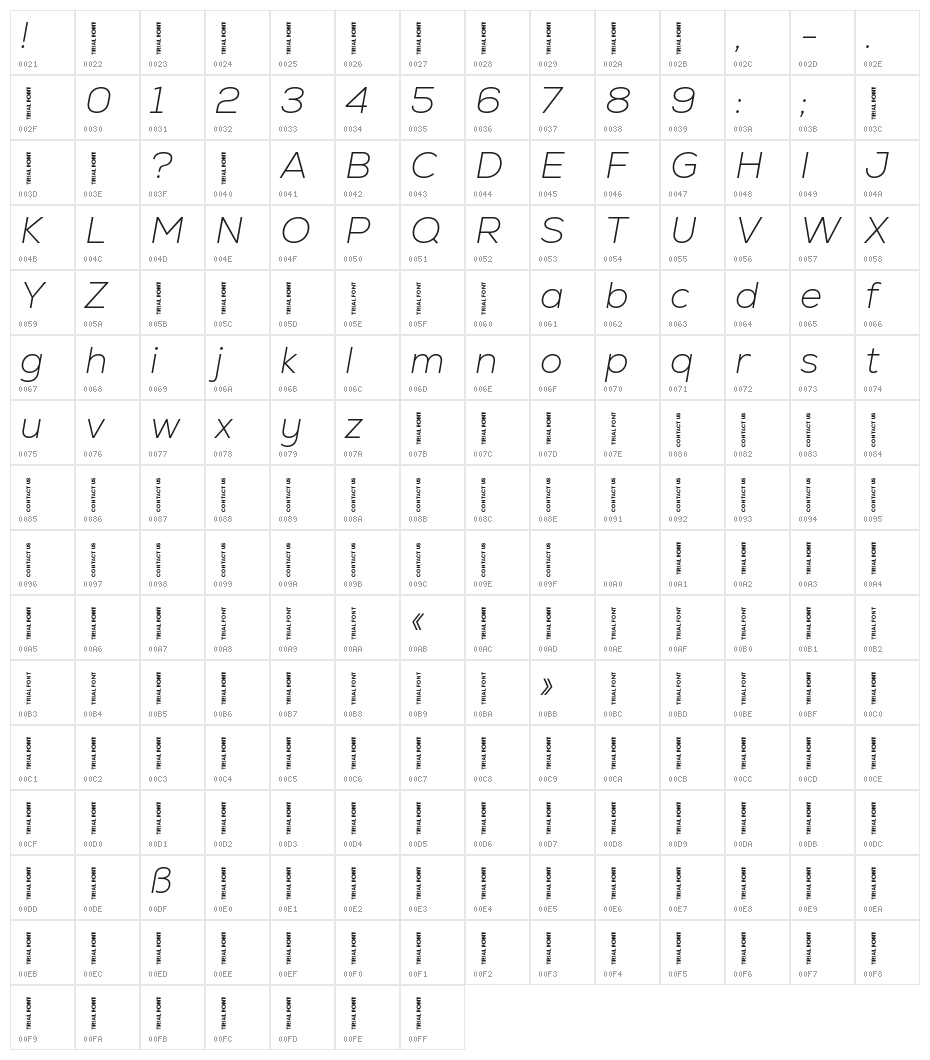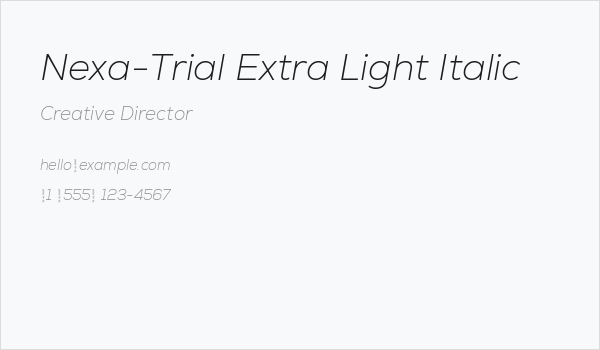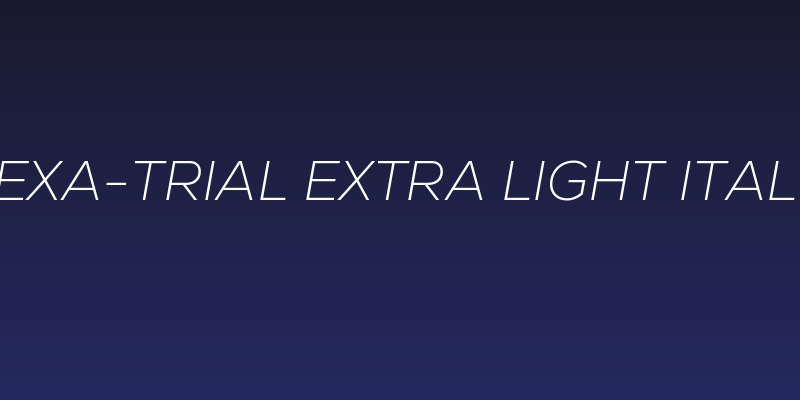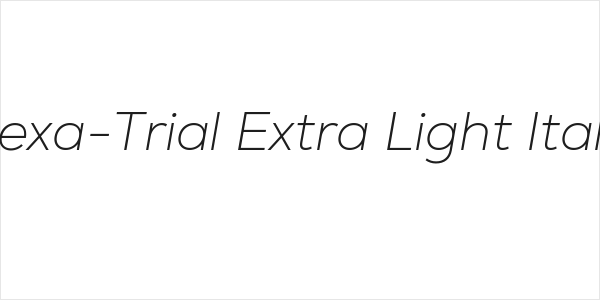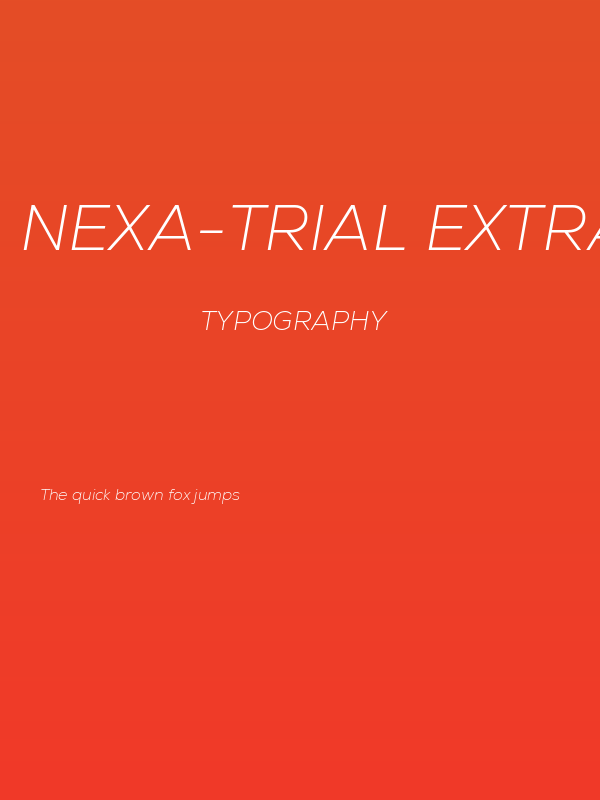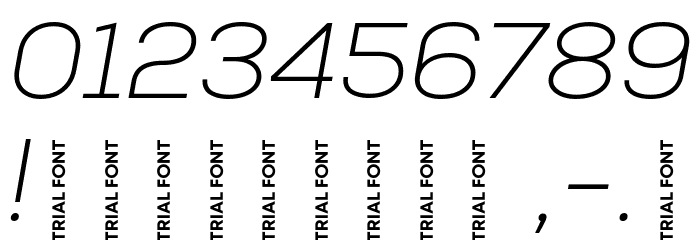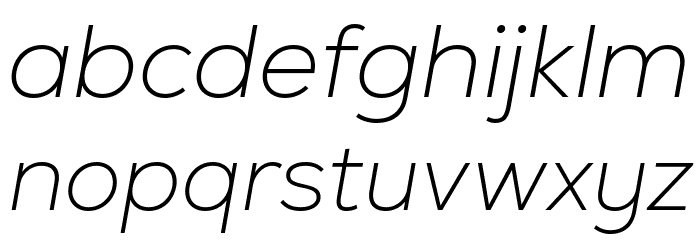
Nexa-Trial Extra Light Italic Font
Nexa-Trial Extra Light Italic Description
This font features a sleek and modern design with an extra-light weight and italic style. The characters are elegantly slanted, giving a sense of motion and fluidity. The sans-serif structure provides a clean and minimalist appearance, making it versatile for various design applications. The uppercase and lowercase letters maintain consistent proportions, ensuring readability and aesthetic balance. The numerals are straightforward and align well with the overall style, while the special characters complement the font's streamlined look. The character spacing is normal, allowing for clear legibility without appearing crowded.
| Proposed Projects | Ideal for modern branding, editorial design, digital interfaces, and minimalist posters. |